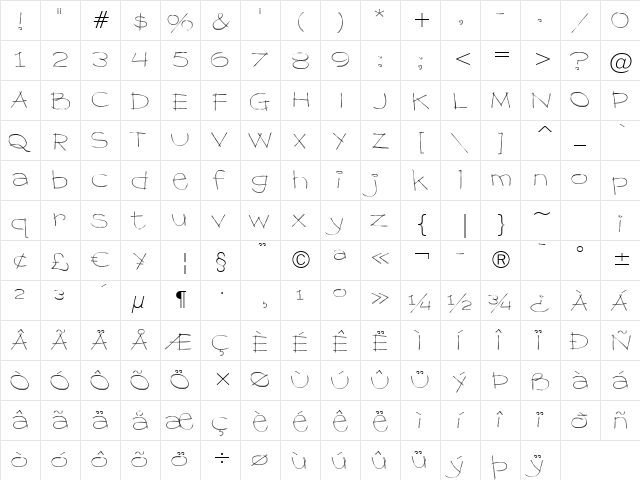
Dragline BTN Th Regular
Design Context for Dragline BTN Th Typeface
Dragline BTN Th is a composed and adaptable typeface that performs quietly and consistently across a wide range of design contexts.
Pro Tip: Use Dragline BTN Th in both headline and body roles to test its range before committing to a single application.